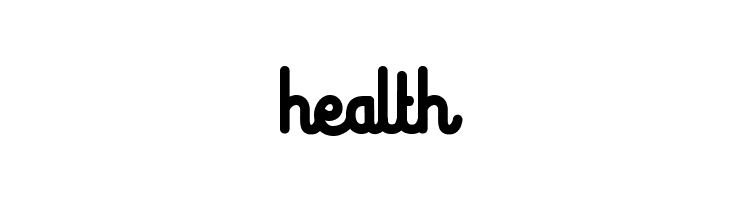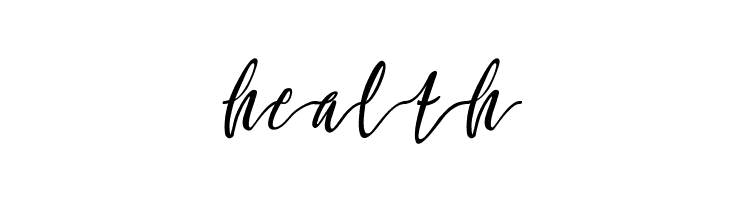
An elegant, cursive handwritten font with smooth, connected strokes.
A flowing, elegant script font with interconnected letters and a modern twist.
A bold, playful script font with rounded, connected letterforms.
A bold, energetic script font with fluid, connected letterforms.
A graceful script font with flowing, connected strokes and elegant flourishes.
An elegant cursive font with flowing, interconnected letterforms and decorative swashes.